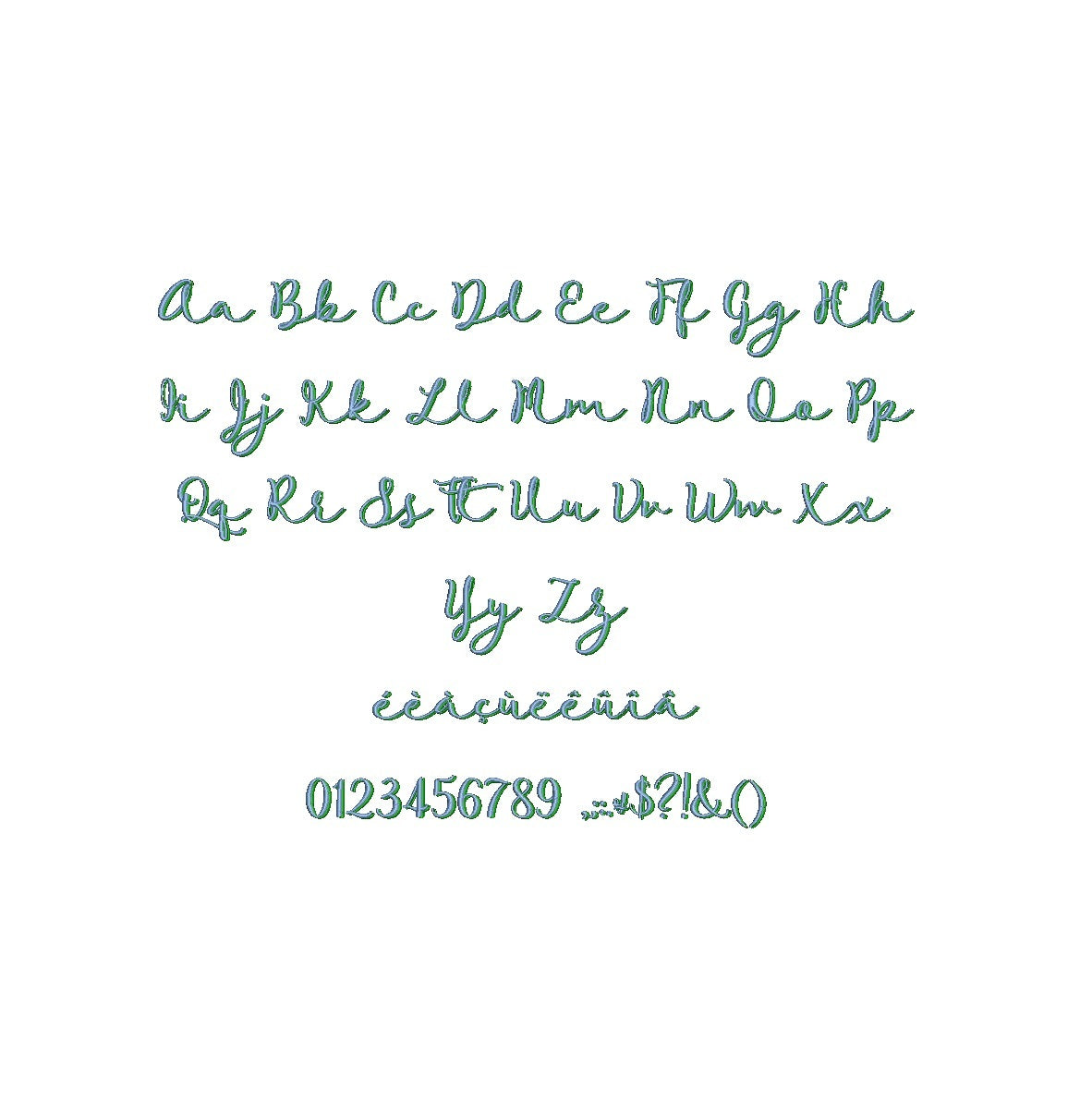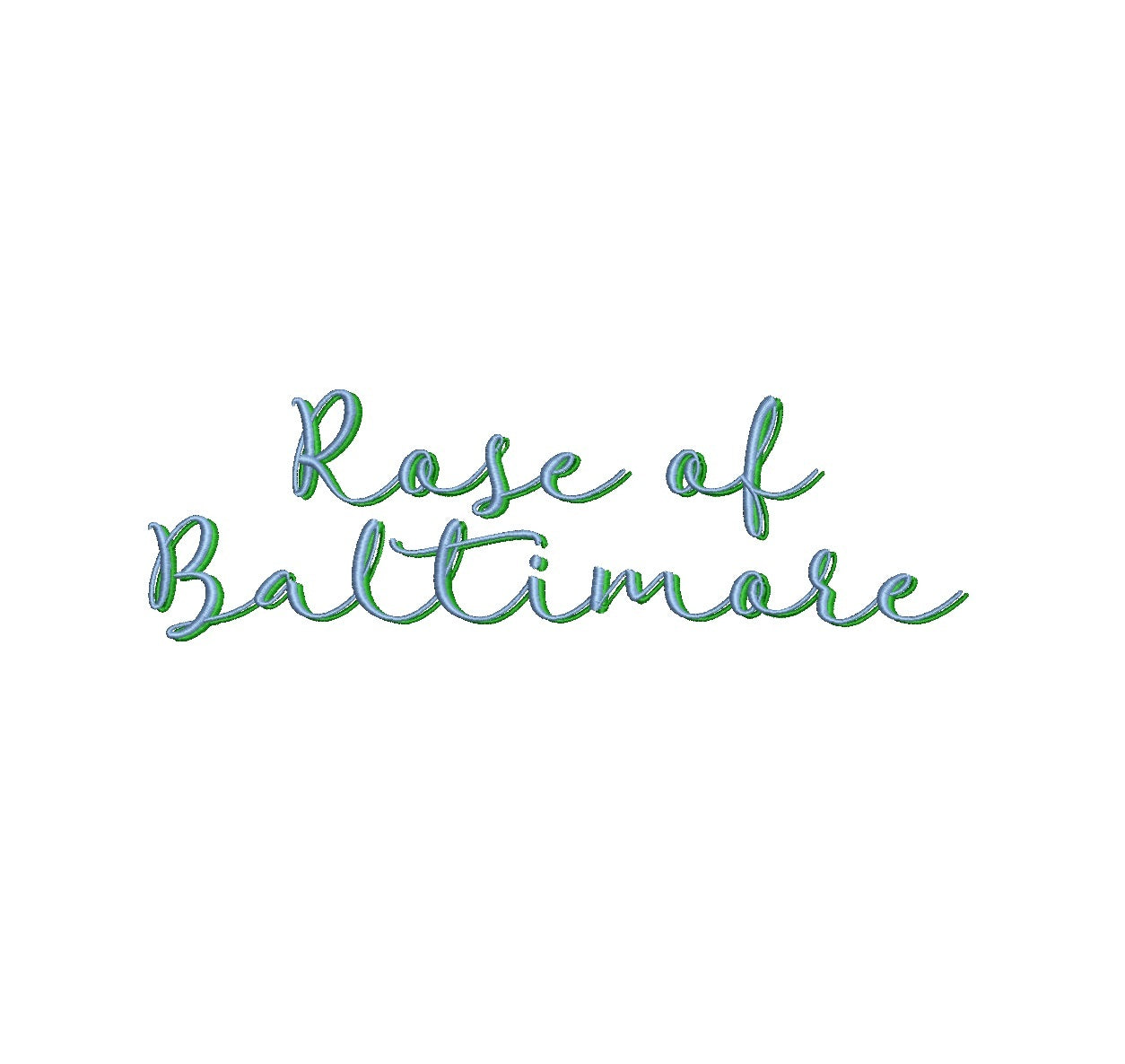
Elevate your embroidery with the elegant Rose of Baltimore Shadow ESA font. Crafted for Wilcom Studio e4.5.6 and Hatch 3 versions and newer, this font seamlessly blends sophistication and compatibility. Create exquisite designs using its intricate shadow effect, adding depth and allure to your lettering. Ideal for diverse applications, from floral motifs to refined text layouts. Effortlessly express your artistry as Rose of Baltimore Shadow ESA font infuses your embroidery with timeless beauty. Elevate your creations and leave a lasting impression. Choose this font to transform your designs into captivating works of art that stand out.